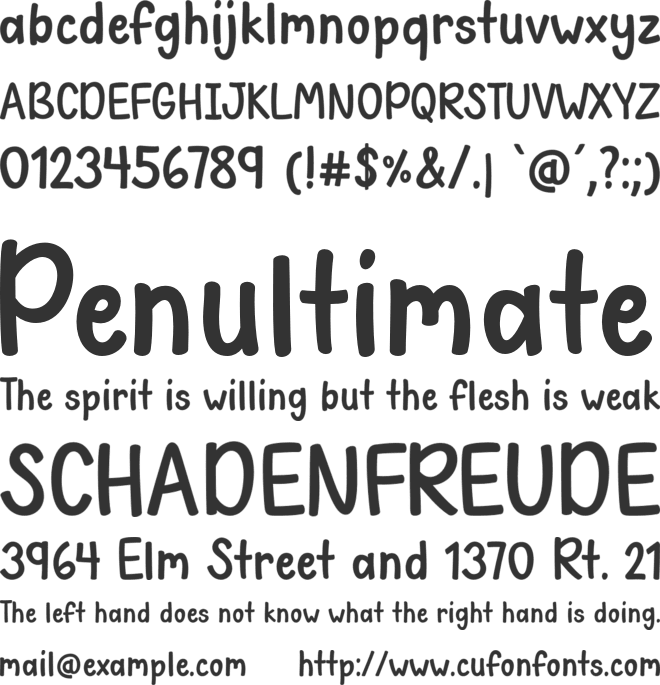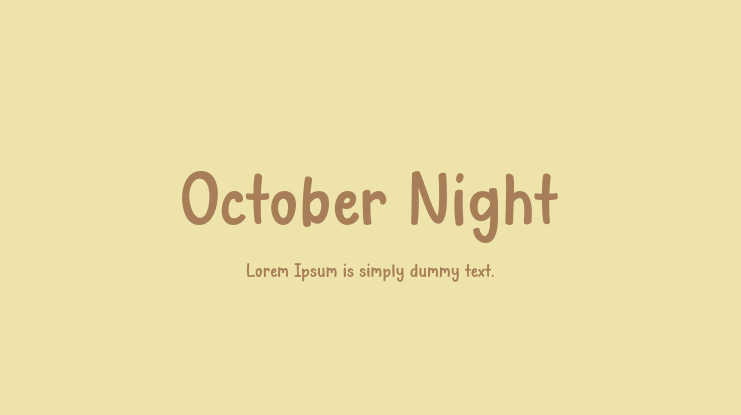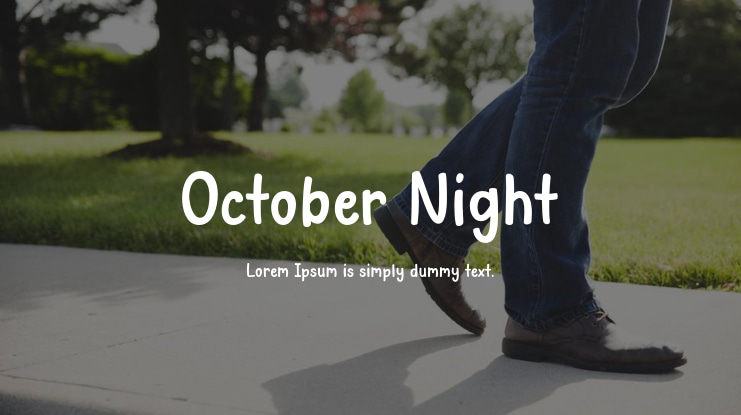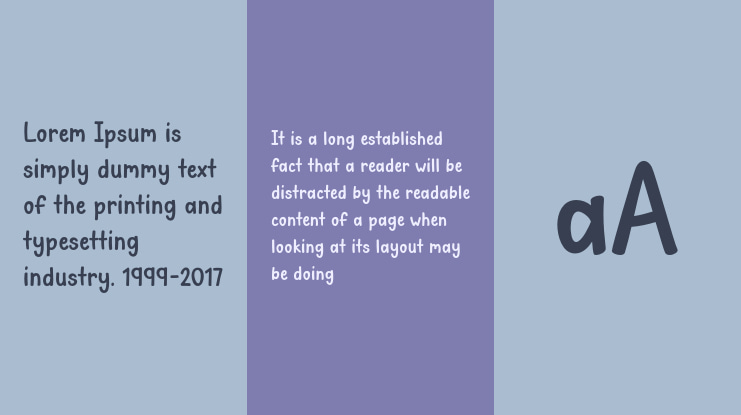
October Night Font
October Night is a charming and playful font that embodies the spirit of Halloween. Its whimsical and quirky design makes it the perfect choice for any project that aims to capture the fun and whimsy of this festive holiday. With its rounded edges and cute curves, this typeface exudes a sense of playfulness and mischief that will surely delight your audience.